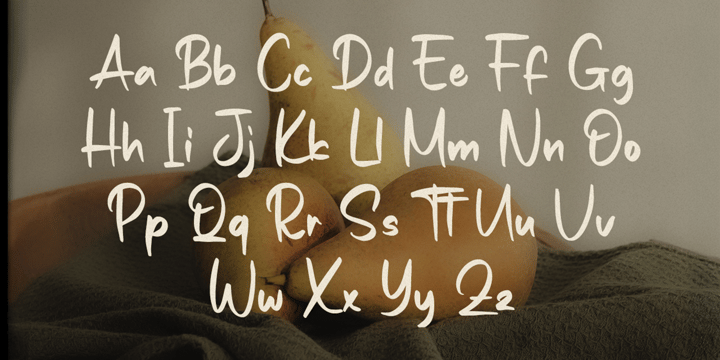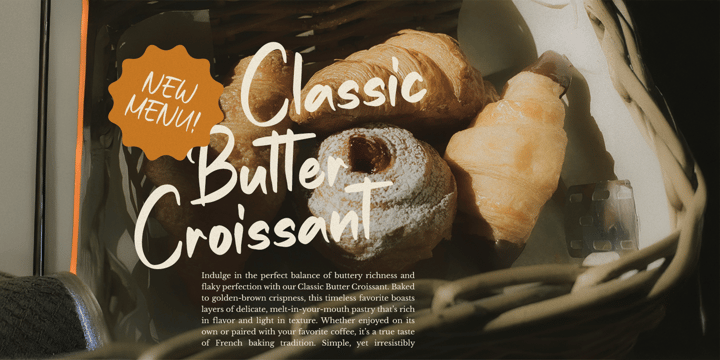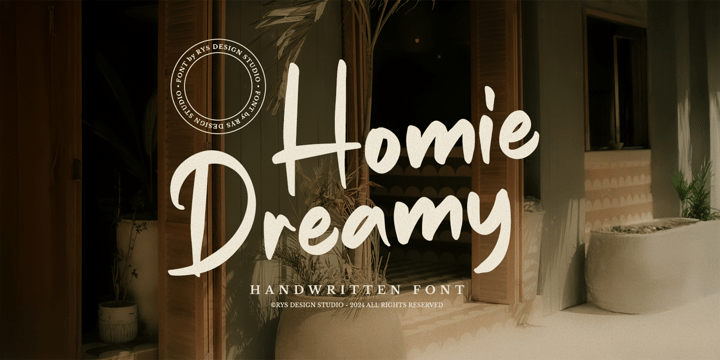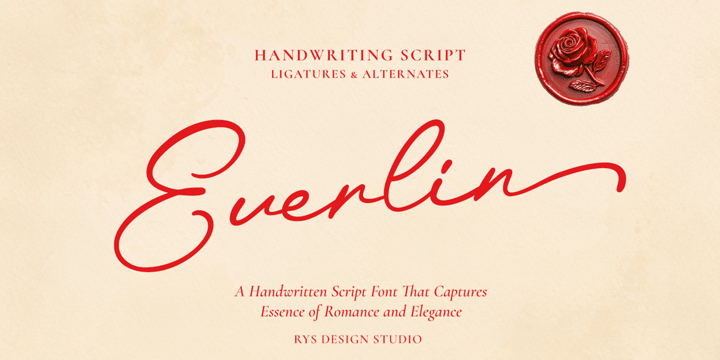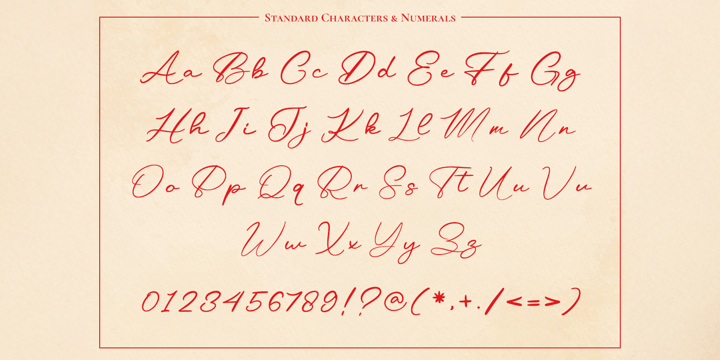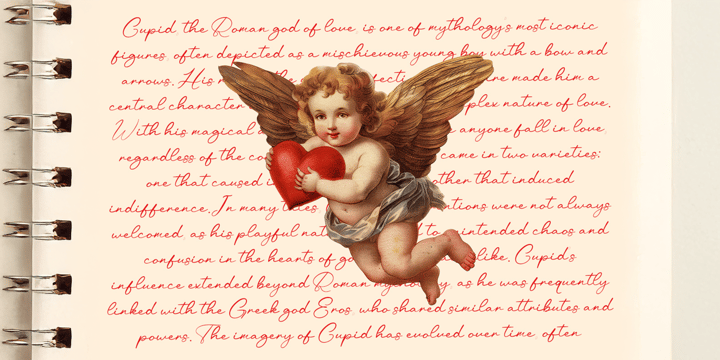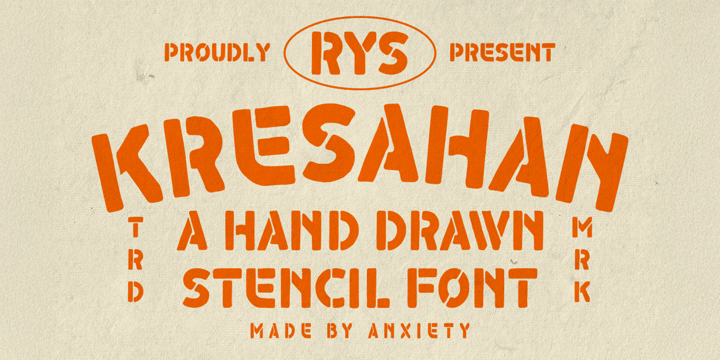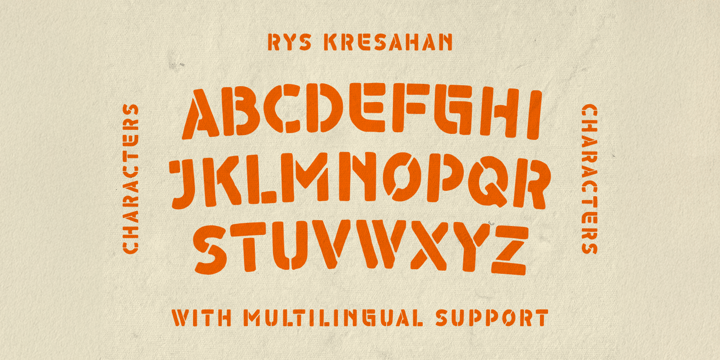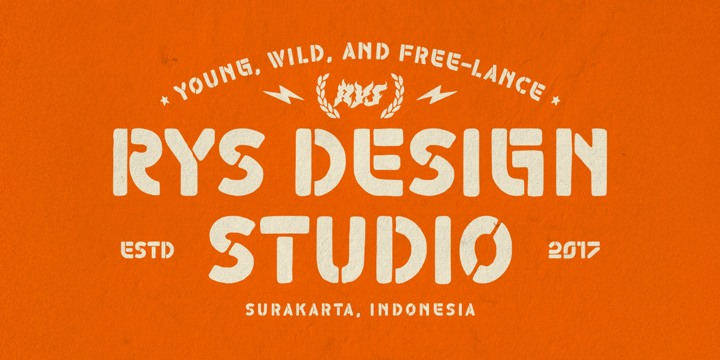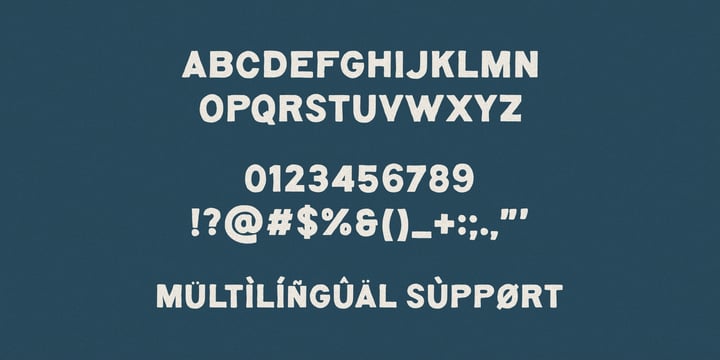
Witoko Aji Laksono
Hello, I’m Witoko Aji, Founder of Rasayangsama Design Studio
As a self-taught Graphic Designer and Lettering Artist with over 7 years of experience and 1,000++ completed designs, I specialize in creating logotypes, custom lettering, and hand-drawn illustrations. My focus is on infusing every design with a personal, handcrafted touch to ensure originality and authenticity.
Beyond design services, I also produce and sell unique fonts, carefully crafted to add personality and style to any creative project. For font creation, I rely on tools like FontCreator and Fontself to bring my ideas to life.
In my daily workflow, I’m well-versed in Adobe Creative Suite, seamlessly using it to execute and refine my projects. I’m particularly inspired by vintage design aesthetics and authentic, handmade artistry, which often influence my creative direction.